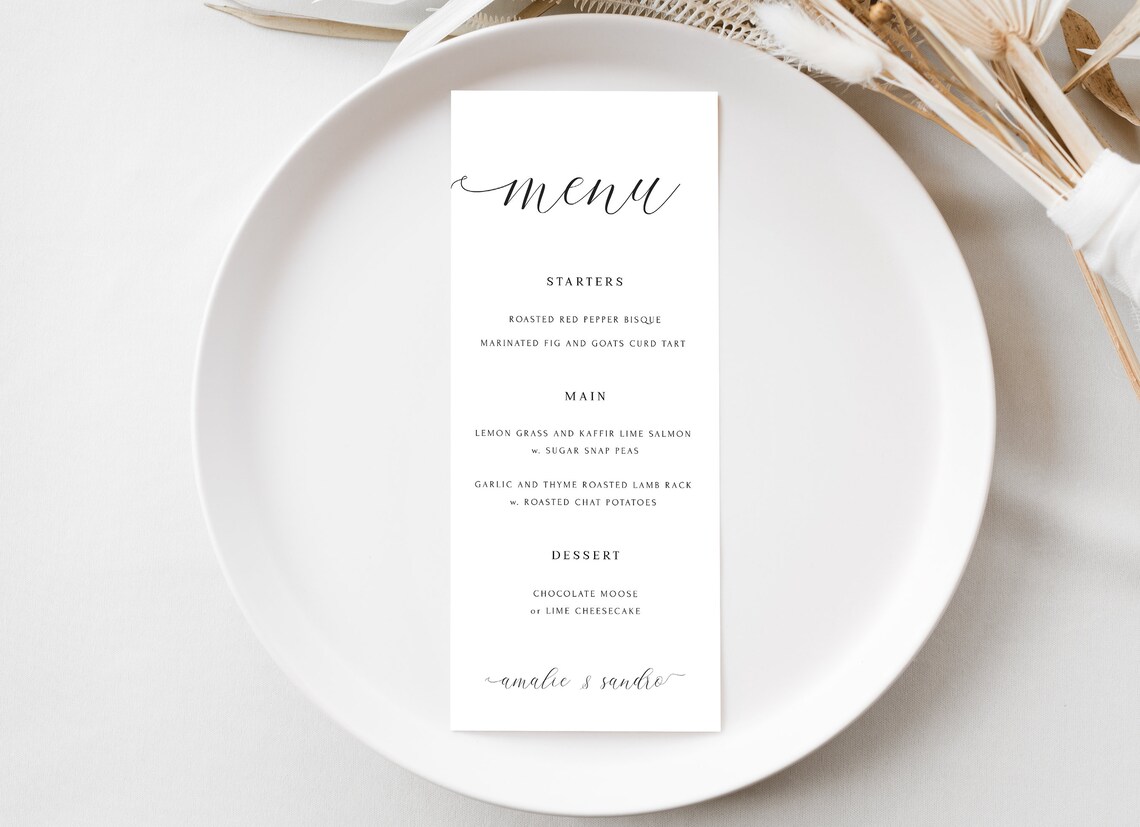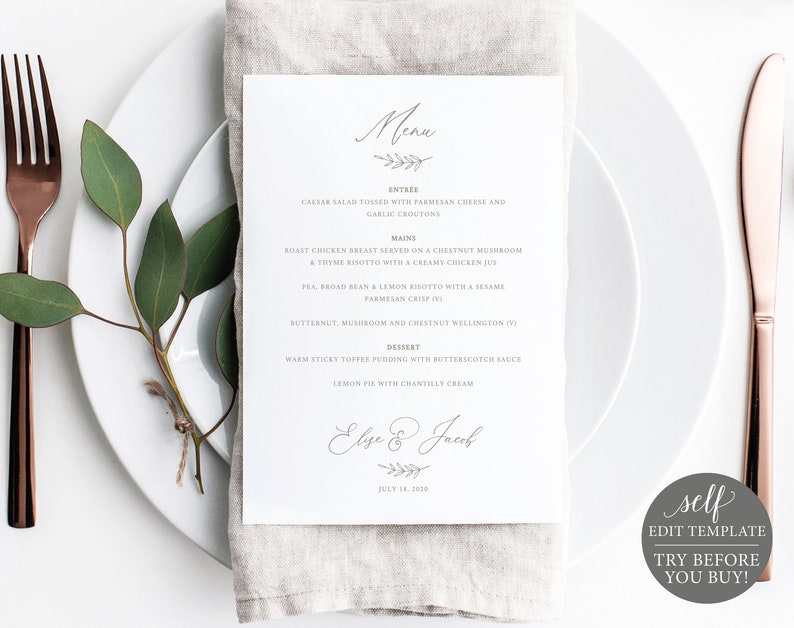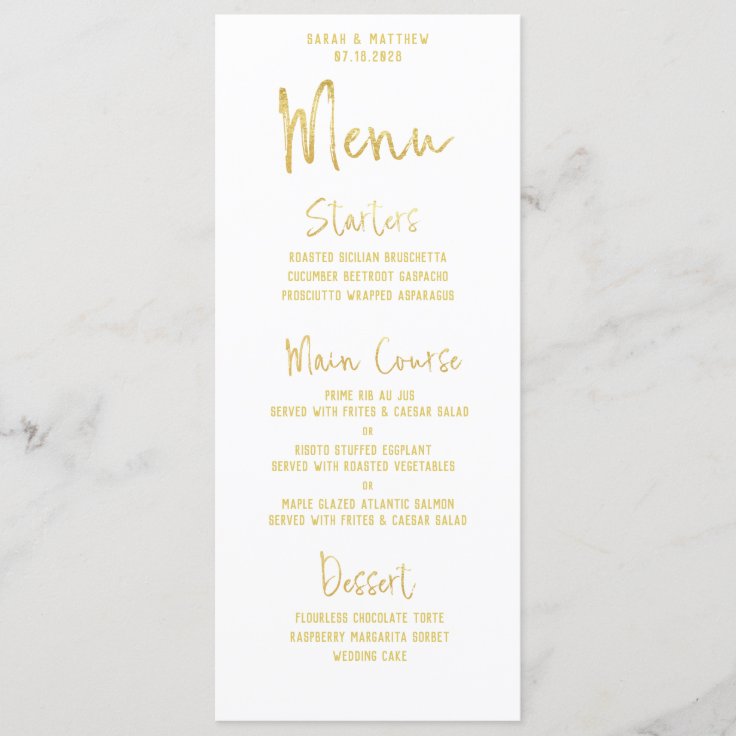
Looking for Wedding Menu fonts? Click to find the best 99 free fonts in the Wedding Menu style. Every font is free to download! As you're designing your wedding stationery, you'll need to pick out the perfect font. We created a complete guide to wedding fonts, including an overview of typefaces, tips for selecting the.
Download beautiful, free wedding fonts that will make your special day even more unforgettable. From elegant calligraphy to vintage typewriter typefaces, find the perfect font to make your wedding invitations truly unique! Best Script Wedding Fonts Lovely Font Exuding elegance and romance, this delicate script font breathes life into wedding invites, menu cards, and place settings. With its airy letterforms and whimsical flourishes, it brings sophistication and a magical touch to every element of your special day.
Make choosing the perfect font easy with this list of the best wedding fonts in Canva, available for free and pro users! Choose the perfect font for your wedding invitations, programs, and other stationery with our collection of elegant wedding fonts. To summarize, the best font for a wedding menu is one that is easy to read, strikes a balance between style and legibility, and complements the overall theme and atmosphere of your wedding. Whether you choose a classic font or a script font, make sure it enhances the dining experience for your guests and adds a touch of elegance to your special.
Adding a personal touch to your wedding is all about the little details, and one of the most effective ways to do so is by selecting the perfect fonts. With countless free options available, you can transform your wedding invitation wording into a truly unique masterpiece - from the menu cards to every other stationery piece. However, before making your choice, it's essential to consider.